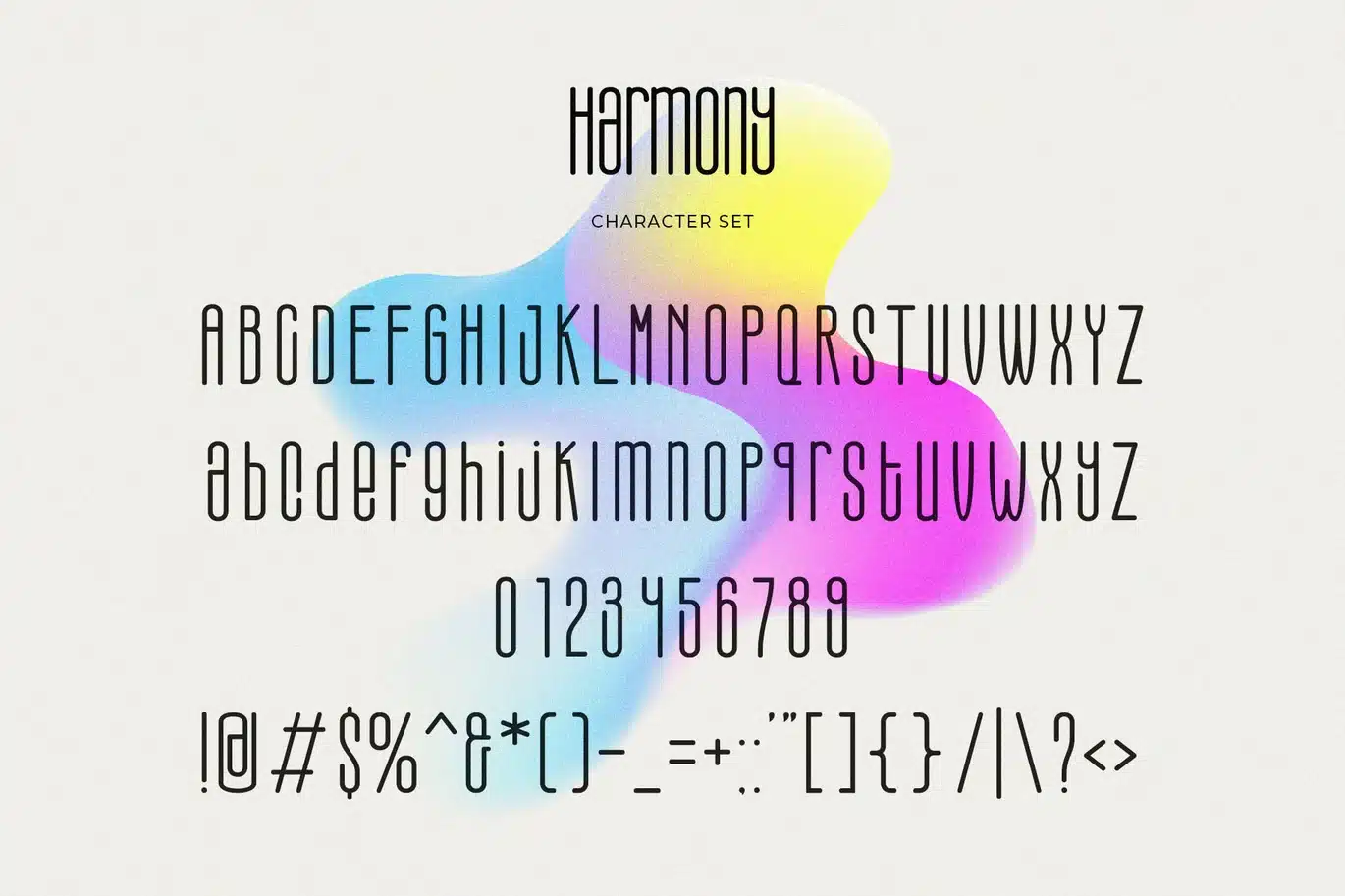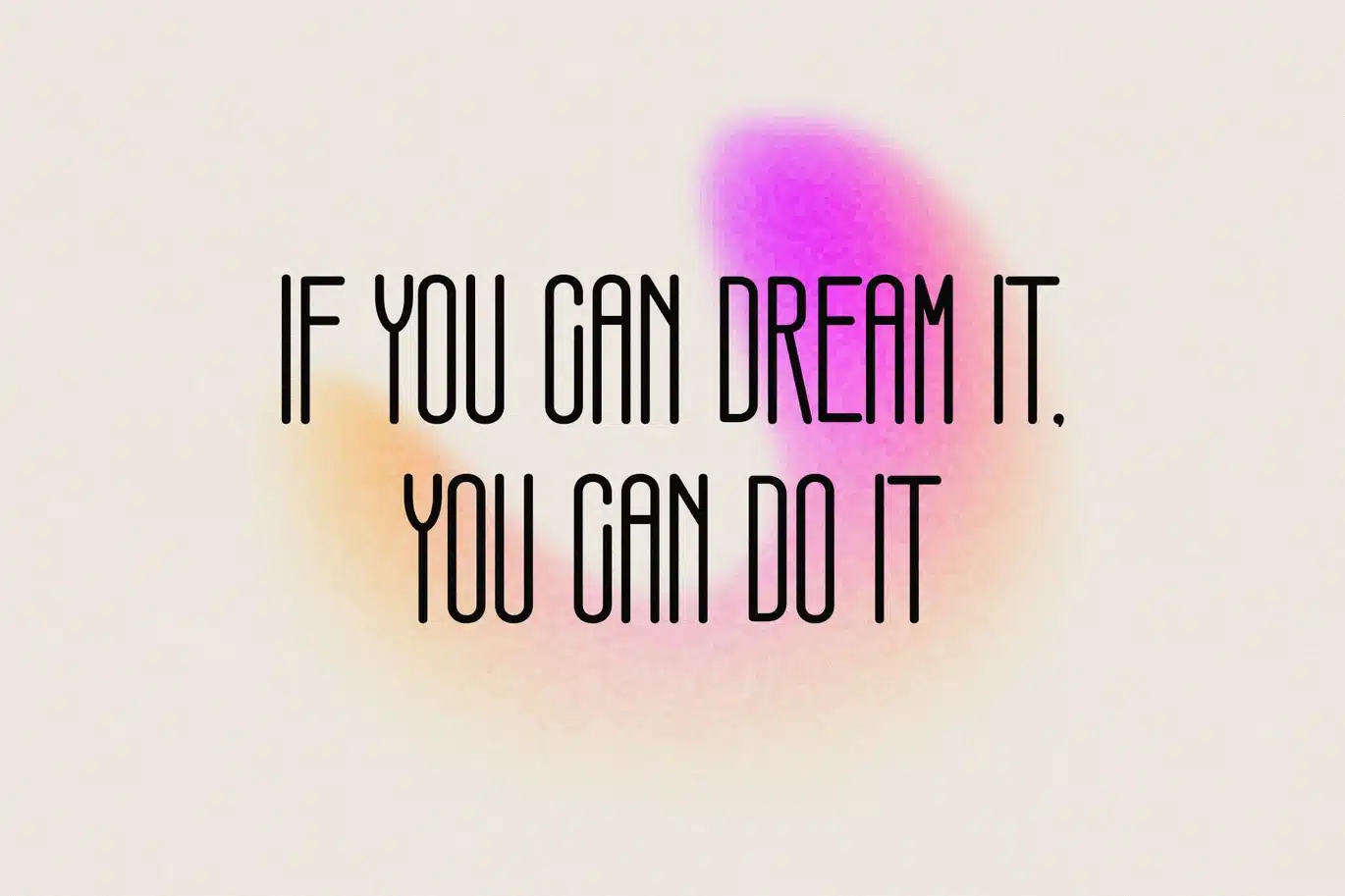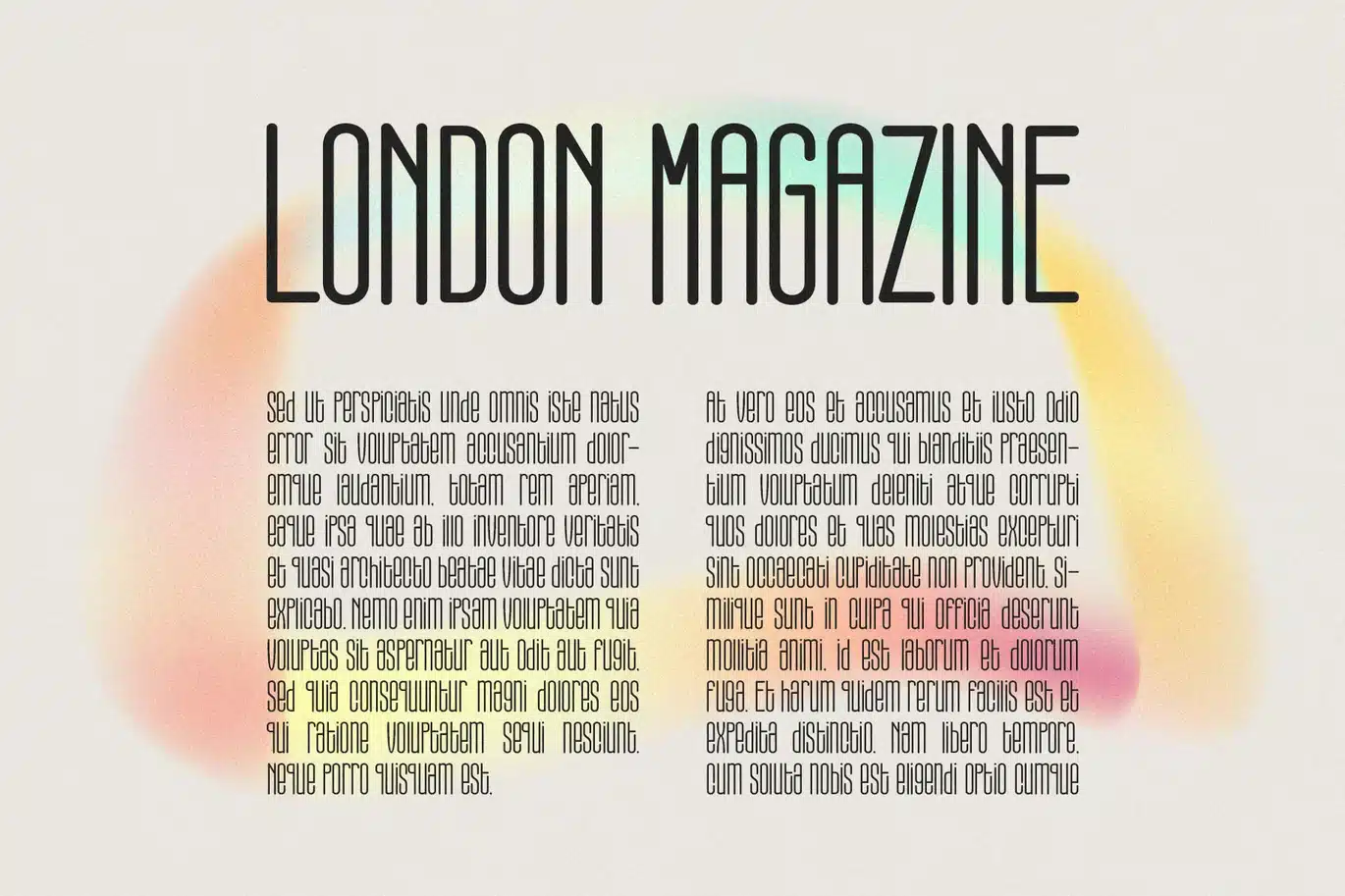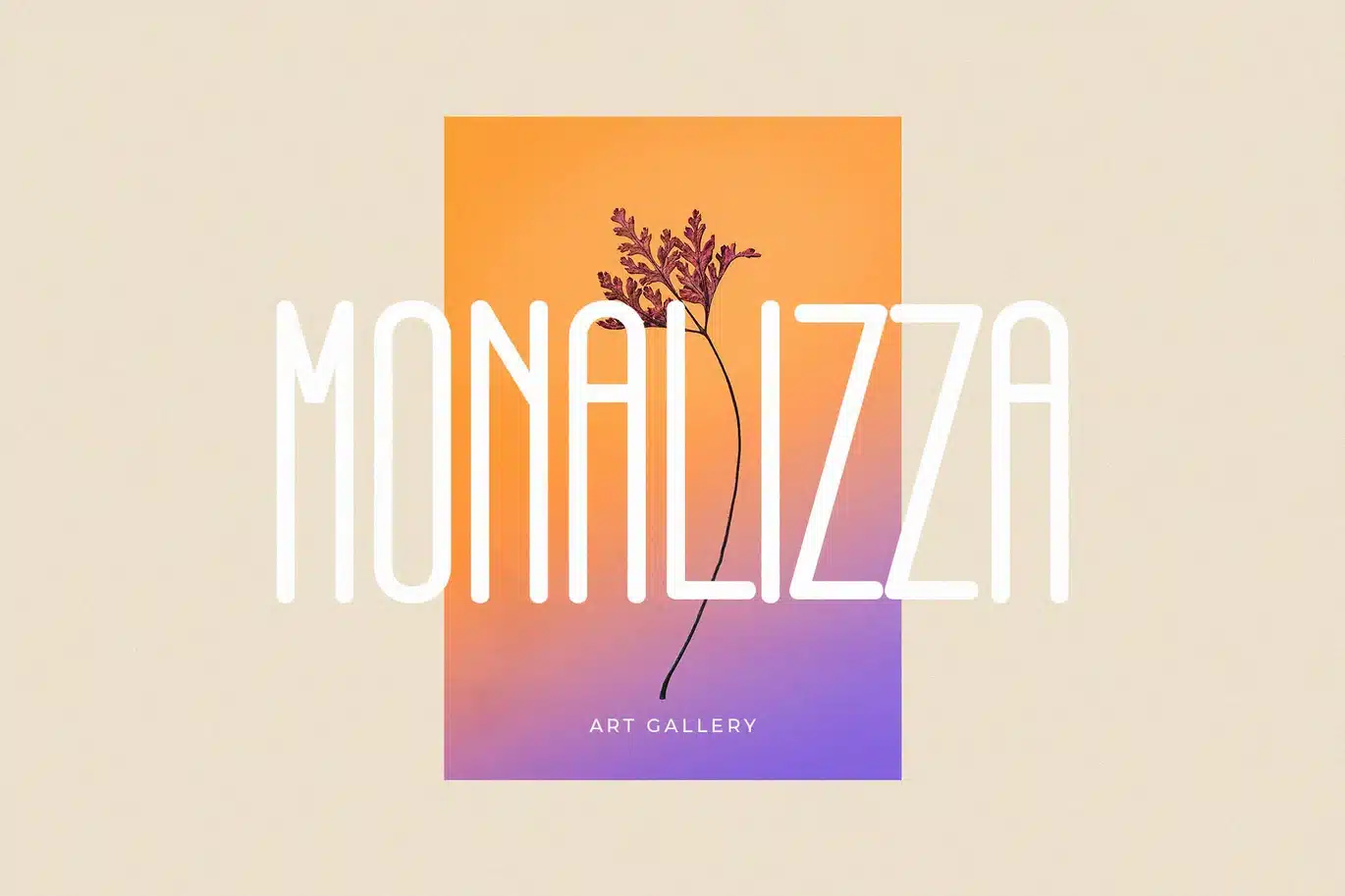
Harmony – Modern Condensed Sans Font
Introducing our new Harmony, modern sans serif font with elegant style this is perfect for branding, logos, invitation, magazines, product packaging and more.